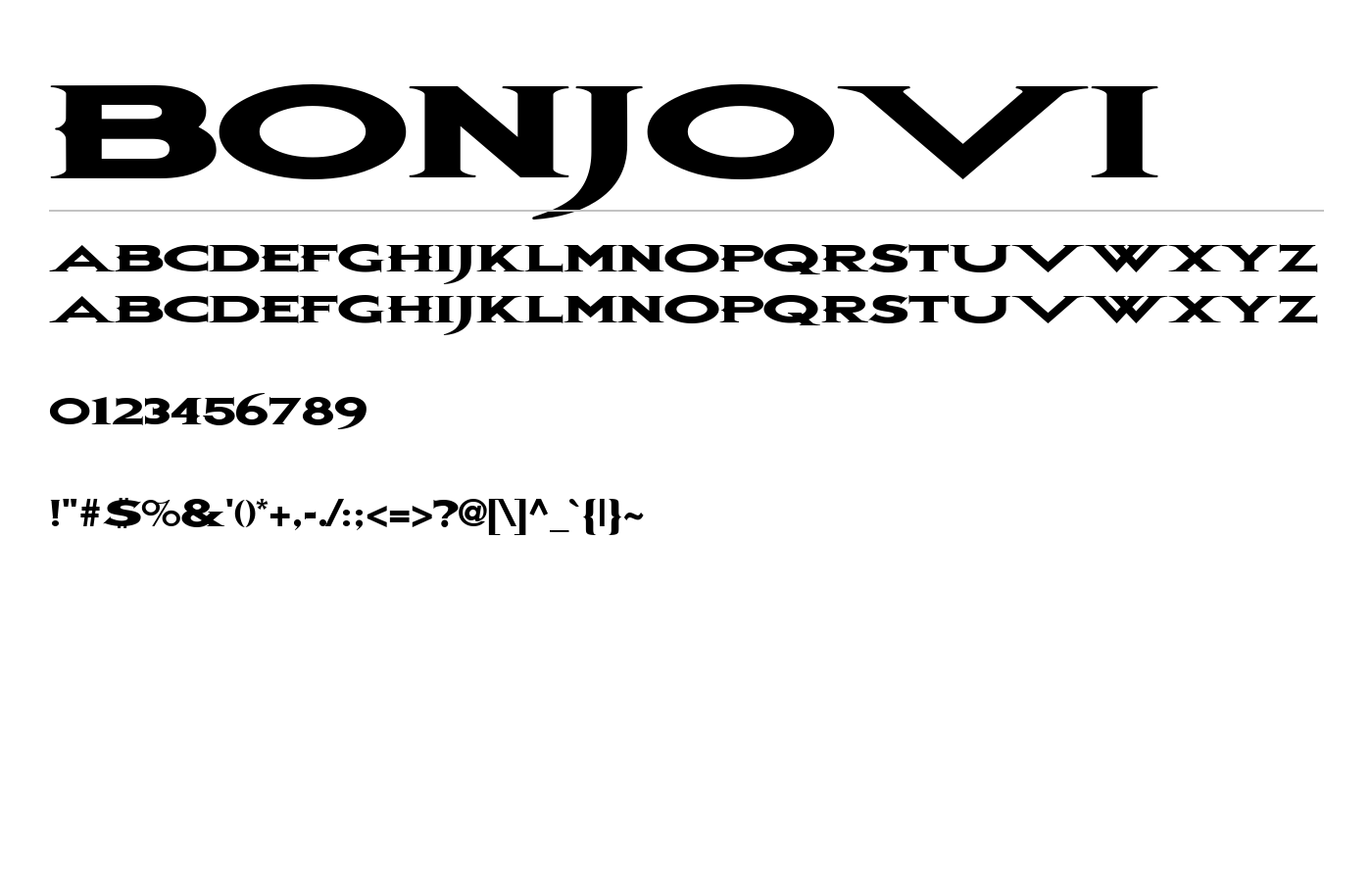
BonJovi is a bold serif font with a strong, classic feel, featuring sharp, tapered serifs and moderate contrast between strokes. Its all-caps style and distinctive letter shapes give it a dramatic and commanding presence, making it perfect for logos, headlines, and branding that seeks a powerful, vintage-inspired look. This font works especially well for projects that want to convey confidence and elegance with a touch of old-world charm.
BonJovi Font
About BonJovi Font